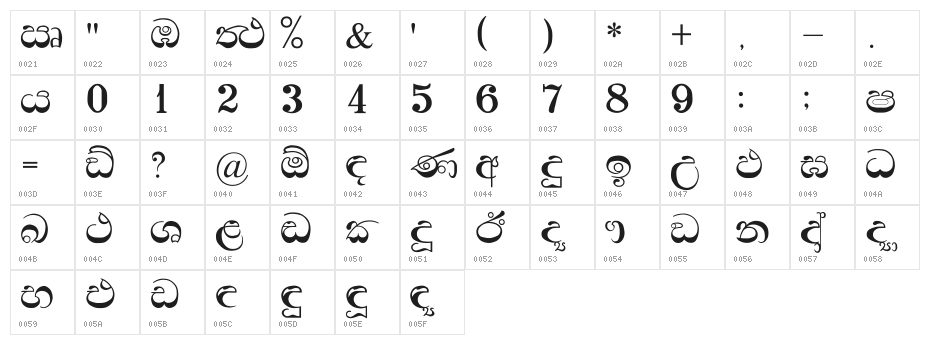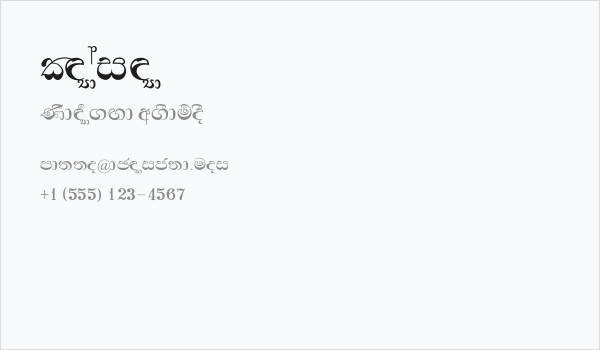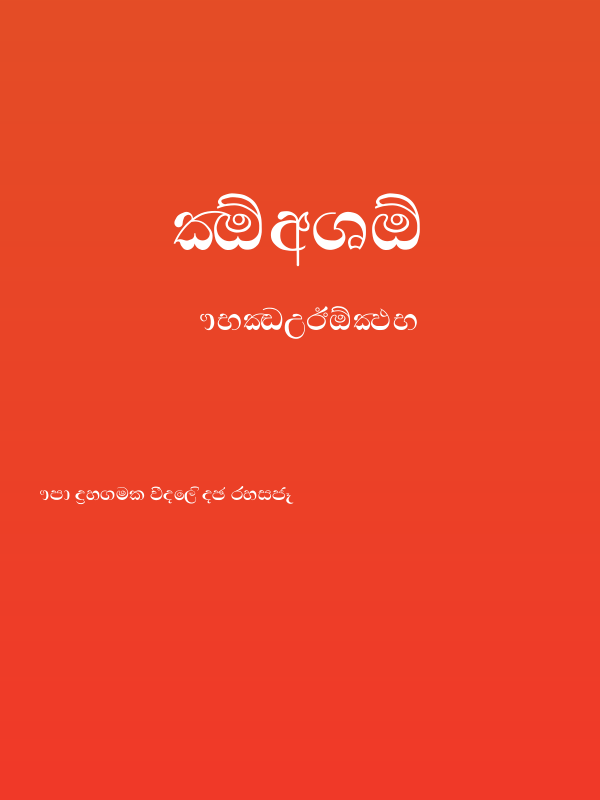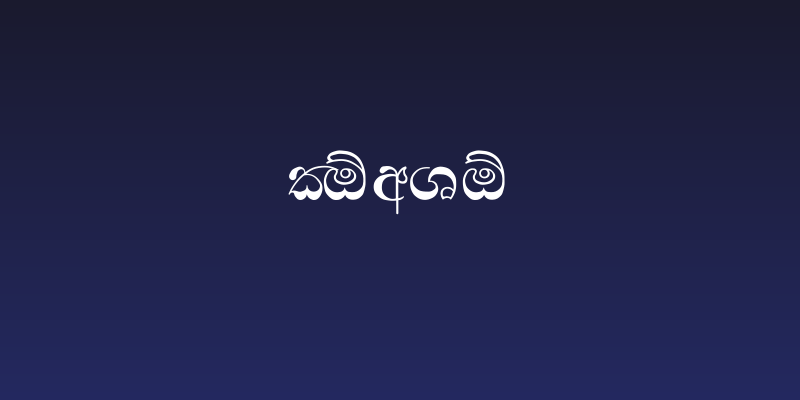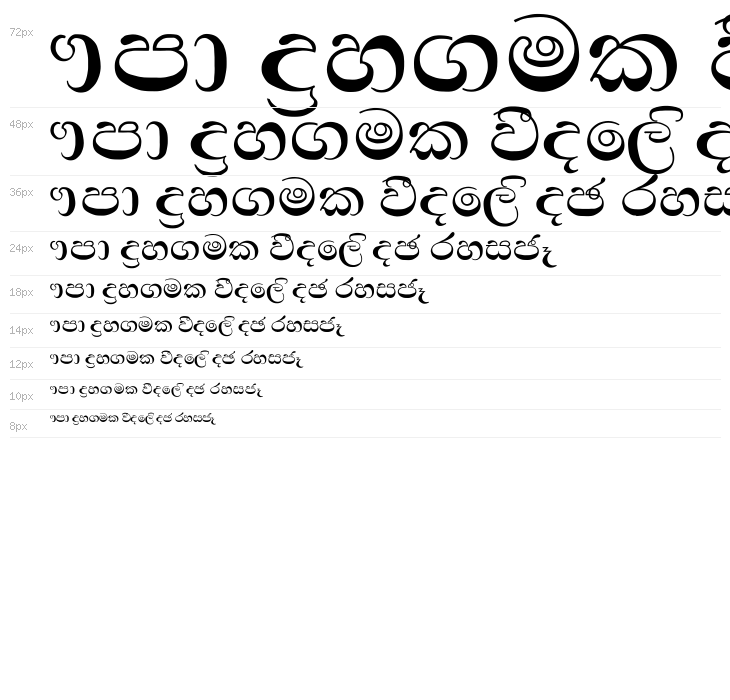
Padma Font
Padma Description
This font features a distinctive and elegant style, characterized by its intricate curves and flourishes. The characters exhibit a high level of detail, with a blend of thick and thin strokes that create a dynamic visual contrast. The numerals are bold and stand out clearly, while the special characters maintain the same ornate style as the letters. This font is designed to capture attention and convey a sense of sophistication and tradition.
Overall StyleTraditional, Elegant
Use CaseHeadlines, Decorative text, Invitations
Proposed ProjectsIdeal for cultural projects, traditional event invitations, decorative signage, and artistic designs.